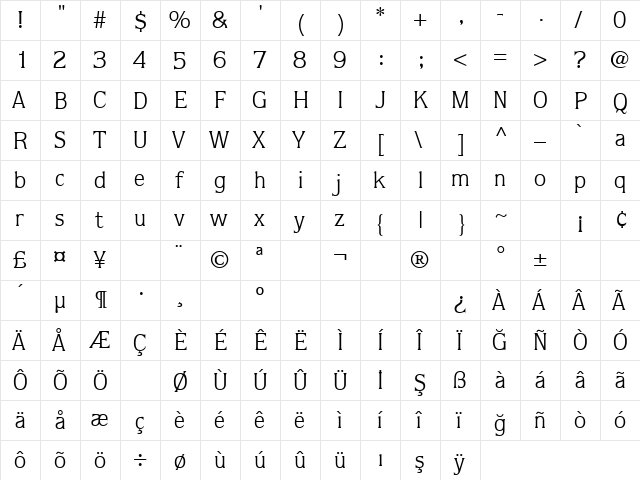
TR DoorsBook Regular
Design Context for TR DoorsBook Typeface
TR DoorsBook offers clean, dependable letterforms without strong stylistic allegiance, making it a practical choice for designers who need flexibility.